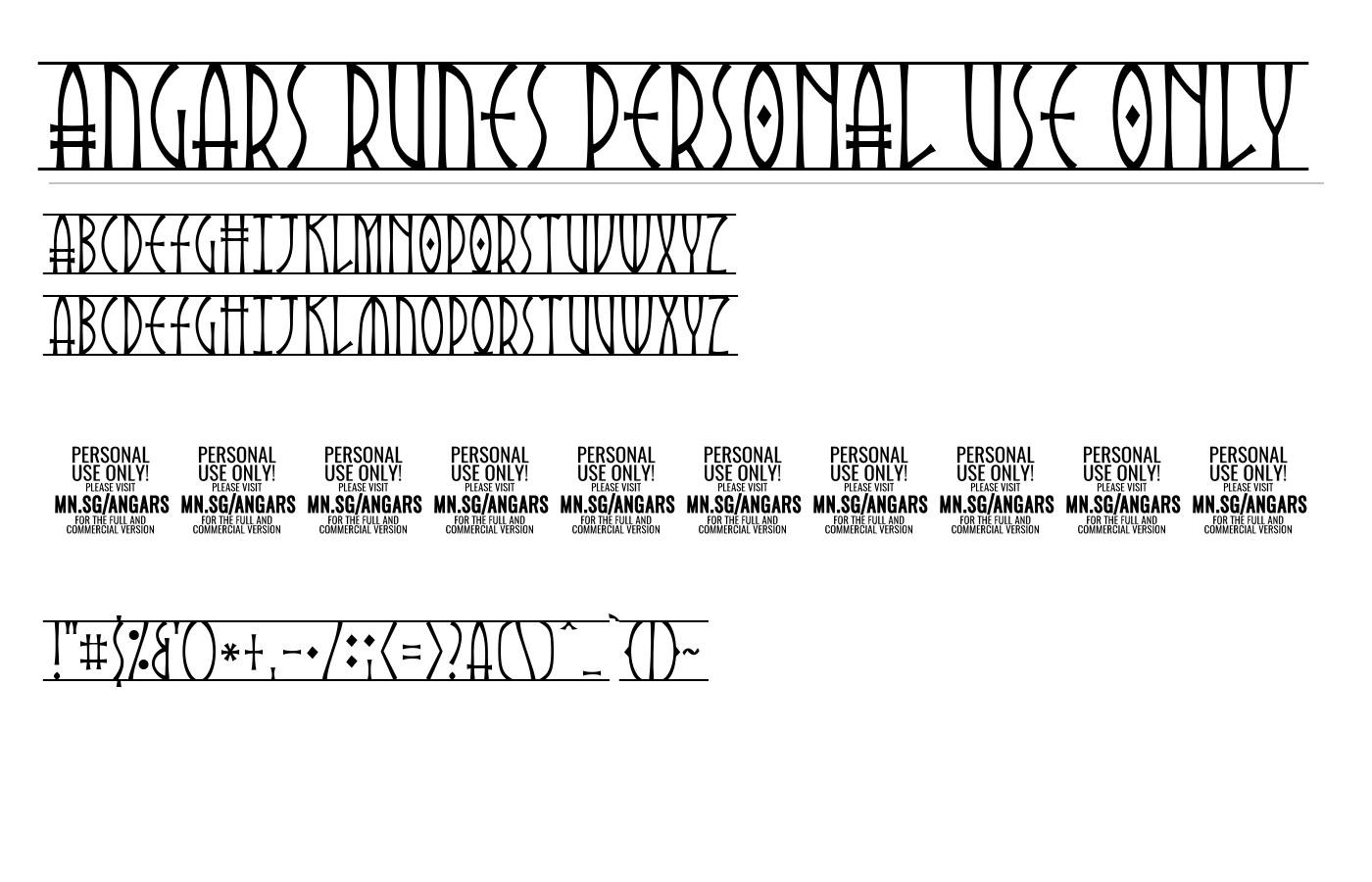
Angars Runes is a narrow, tall display font with a unique rune-inspired design, characterized by its sharp, geometric lines and distinct angular shapes. This font combines an archaic, mystical vibe with a modern, stylized twist, making it perfect for fantasy-themed projects, logos, or decorative headlines that seek an ancient, mysterious feel. Its highly stylized letterforms work best in large sizes where its intricate details and unusual shapes can be fully appreciated.
Angars Runes PERSONAL USE ONLY Font
About Angars Runes PERSONAL USE ONLY Font
| Font family | Angars Runes PERSONAL USE ONLY Font |